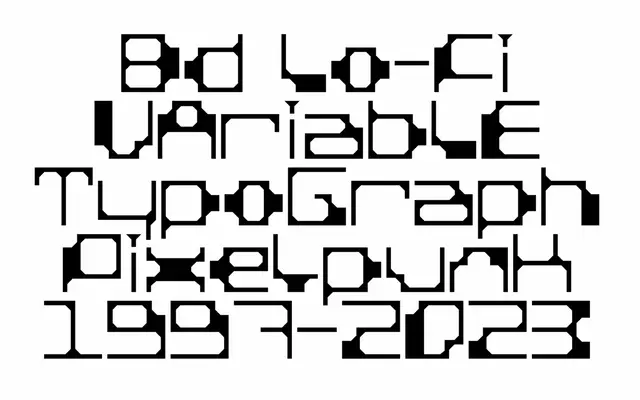
BD LoFi
Type Different · 2023
A pixel-style typeface originally drawn on an Amiga 1200 in 1997, updated in 2023 with expanded language support and a variable font version.
Born from an Amiga 1200 and TypeSmith software in 1997, BD LoFi carries the low-resolution character of late-1990s home computing. The 2023 revision adds a variable font spanning Regular to Bold, alongside extended Latin support covering over twenty European languages. It suits retro-themed digital projects, game interfaces and nostalgic editorial work where a lo-fi aesthetic is intentional.
Originally drawn on an Amiga 1200 using TypeSmith in 1997, BD LoFi carries the characteristic low-resolution aesthetic of early pixel fonts, placing it firmly in the display/bitmap category.